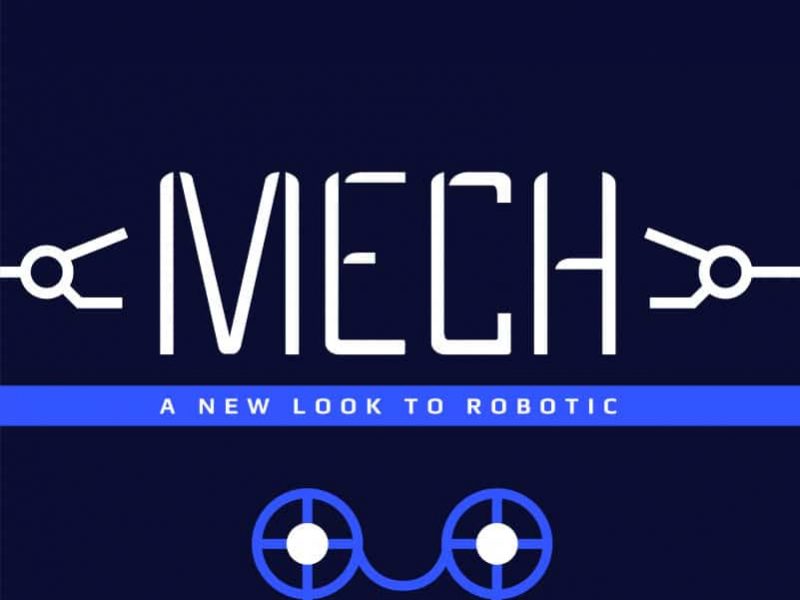
Mech Display Font
Mech Display Font is a geometric stencil typeface inspired in the robotic and technology; with a plus to be easy on the eyes, comparing with other stencil fonts. Designed to be used on titles and subtitles.